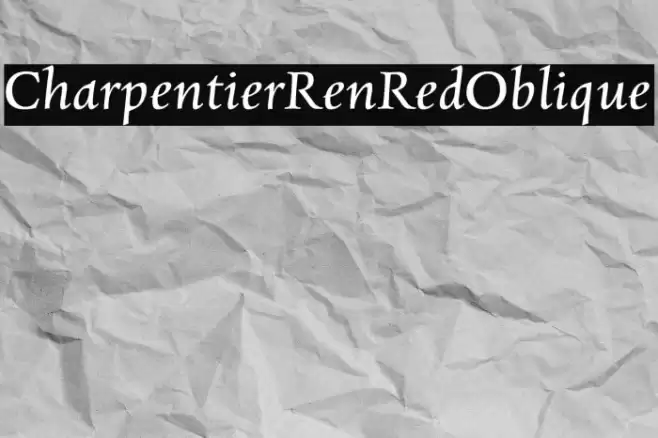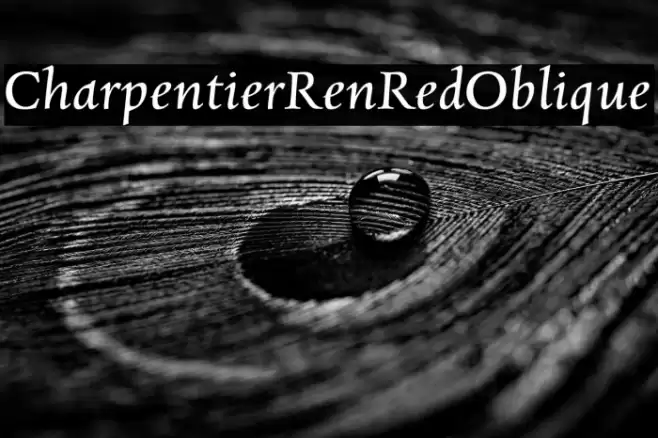
CharpentierRenRed-Oblique Font
CharpentierRenRed-Oblique Description
This font exhibits a classic and elegant style with a slight oblique slant, giving it a refined and sophisticated appearance. The characters are well-proportioned, with a moderate contrast between thick and thin strokes, enhancing readability while maintaining an artistic flair. The serifs are pronounced yet not overly exaggerated, adding to the font's timeless appeal. The lowercase letters have a gentle curve that complements the more structured uppercase letters, creating a harmonious balance. This font is versatile, suitable for both formal and creative applications, and its oblique nature adds a dynamic touch to any design.
A classic, elegant serif font with a slight oblique slant and moderate stroke contrast from Regular fonts.
- Proposed Projects: Ideal for wedding invitations, formal event programs, book covers, and elegant branding projects.
- Overall Style: Classic